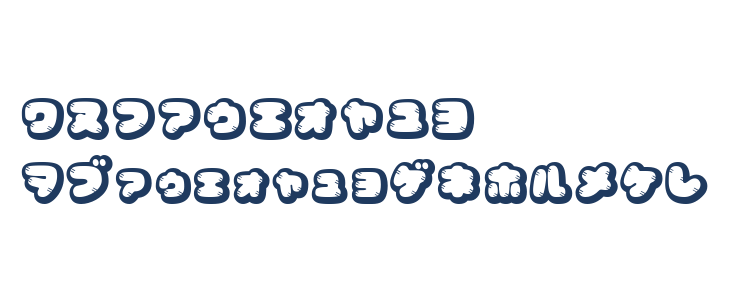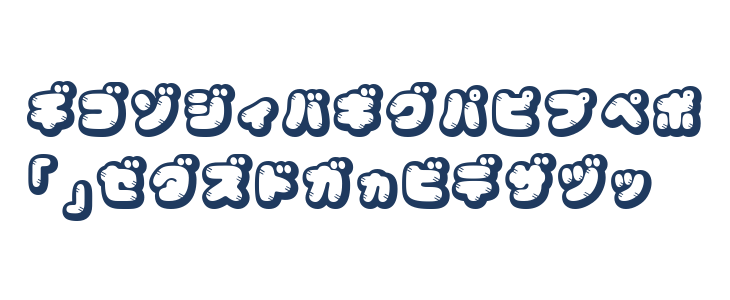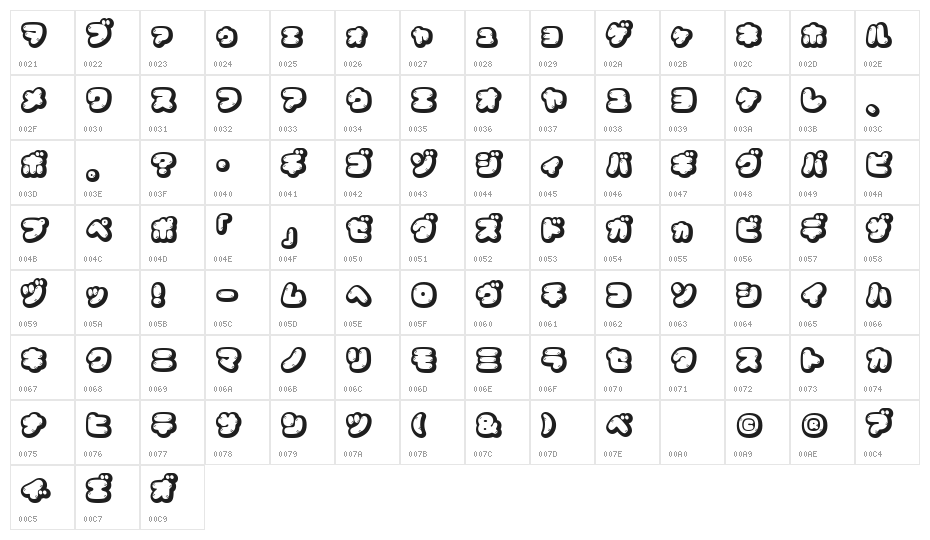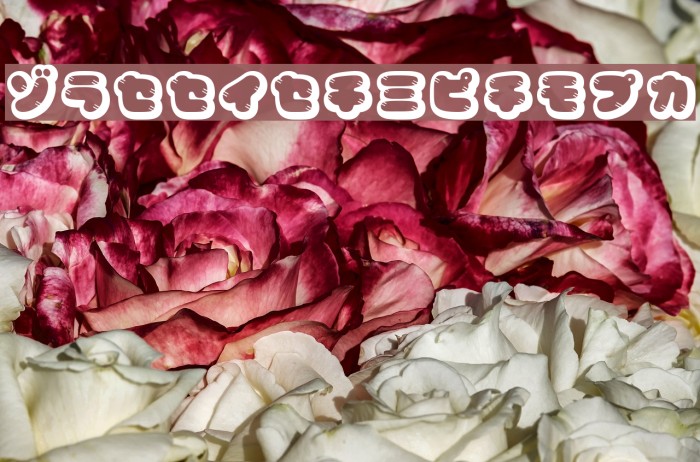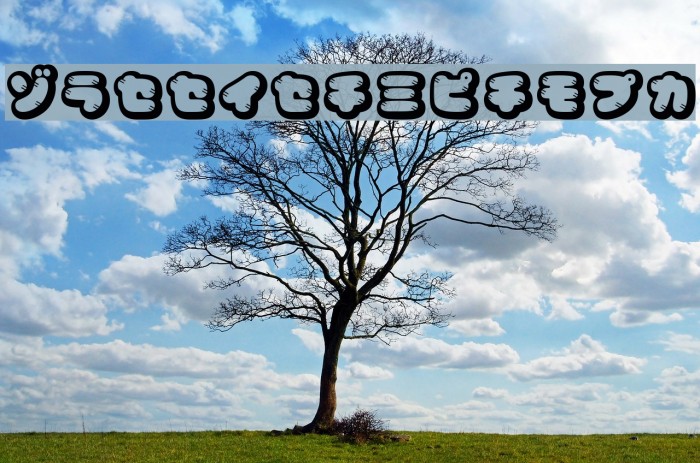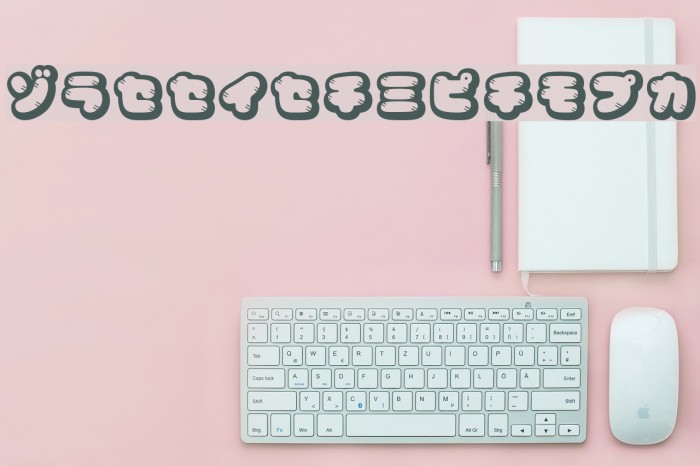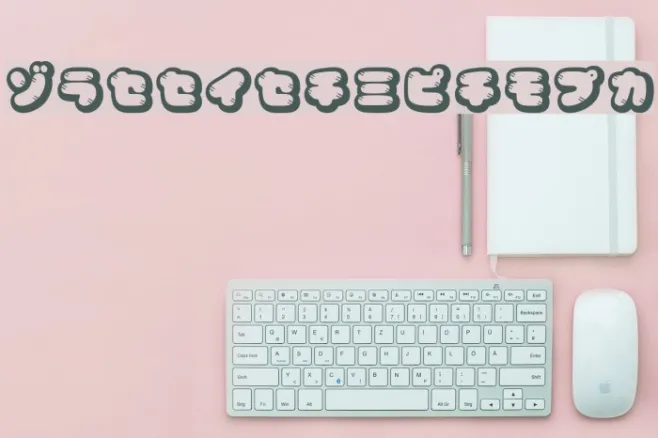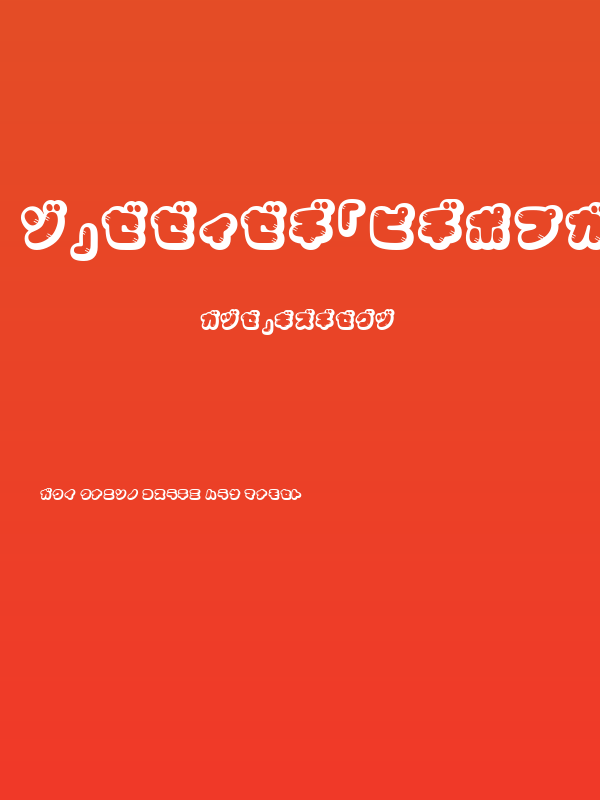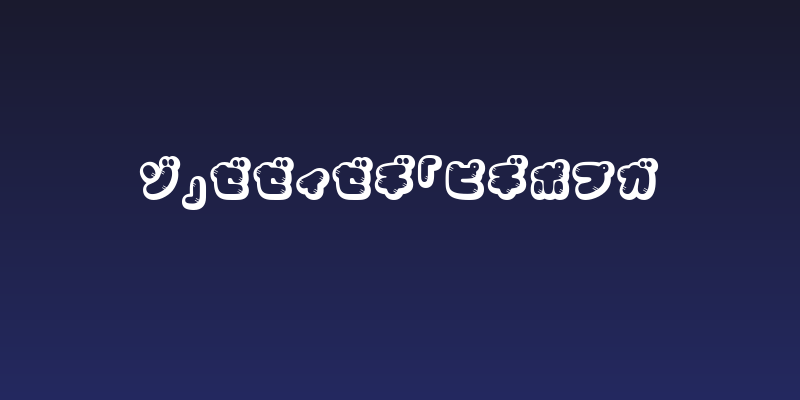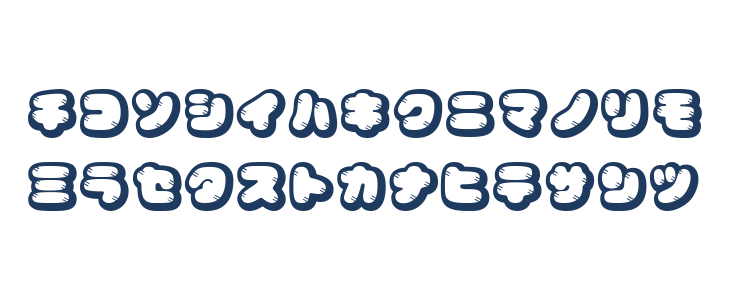
CoppepanJamKt Font
CoppepanJamKt Description
This font features a playful and bubbly design, characterized by its thick, rounded strokes and a cartoonish appearance. The letters are bold and have a three-dimensional effect, giving them a lively and dynamic feel. The font's style is reminiscent of comic book lettering, making it suitable for projects that require a fun and informal touch. The characters are evenly spaced, ensuring readability while maintaining their whimsical charm. This font is perfect for children's books, playful branding, and any creative project that aims to capture a sense of joy and energy.
Overall StylePlayful, Cartoonish
Proposed ProjectsIdeal for children's books, playful branding, comic strips, and creative designs.